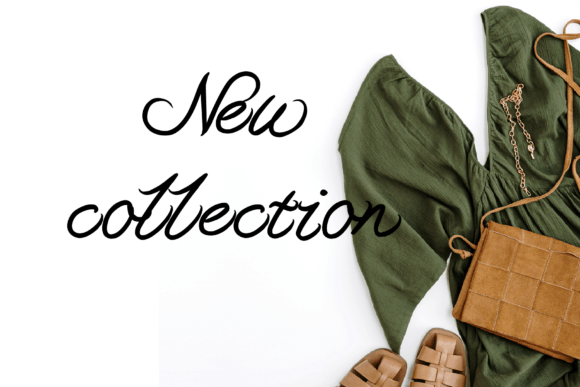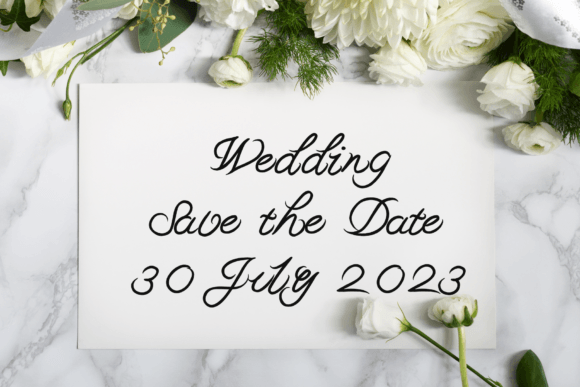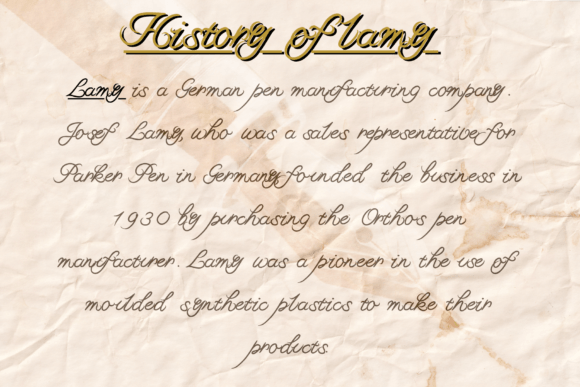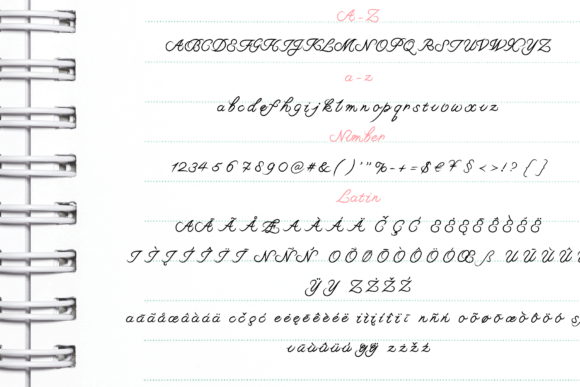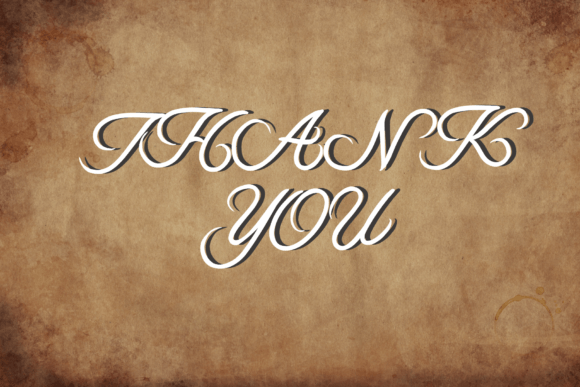
The Font that Stole My Heart: A Deep Dive into Goodly More
I still remember the design project that led me to discover Goodly More. I was working on a whimsical branding project for a children’s bookstore, and I was struggling to find the perfect font. The client wanted something sweet, friendly, and playful, but not too over-the-top. I tried font after font, but nothing seemed quite right. That was until I stumbled upon Goodly More.
Goodly More is a sweet and friendly handwritten font that has become a staple in my design toolkit. Its natural and unique style makes it incredibly fitting to a large pool of designs. The only limit is your imagination! In this article, I’ll share my honest review of Goodly More, provide a practical guide on how to use it, and explore similar fonts and alternatives.
An Honest Review of Goodly More
- ✨ Sweet and friendly vibe: Goodly More has a warm and approachable feel that’s perfect for designs that require a personal touch.
- ✅ Highly versatile: This font can be used for a wide range of projects, from branding and packaging to invitations and social media graphics.
- 💫 Unique character: Goodly More has a distinct personality that sets it apart from other handwritten fonts.
- 🔍 Excellent legibility: Despite its playful nature, Goodly More remains clear and easy to read, even at smaller sizes.
While Goodly More is an excellent font, it’s not perfect. Here are a few things to keep in mind:
- 🤔 Limited use in formal contexts: Goodly More is a highly informal font, so it’s not suitable for projects that require a formal tone.
- ⚠️ Occasional kerning issues: As with any font, you may encounter some kerning issues, especially when using it at larger sizes.
The Designer Inspiration Behind Goodly More
Goodly More was designed with the intention of creating a font that’s both sweet and sophisticated. The designer aimed to create a font that’s perfect for designs that require a personal touch, such as invitations, branding, and social media graphics.
Q: Is Goodly More suitable for body text?
A: While Goodly More is a beautiful font, it’s not ideal for body text due to its playful nature. However, it can be used for short paragraphs or captions.
Q: Does Goodly More support OpenType features?
A: Yes, Goodly More supports OpenType features, including Stylistic Alternates, Glyphs, and Swashes.